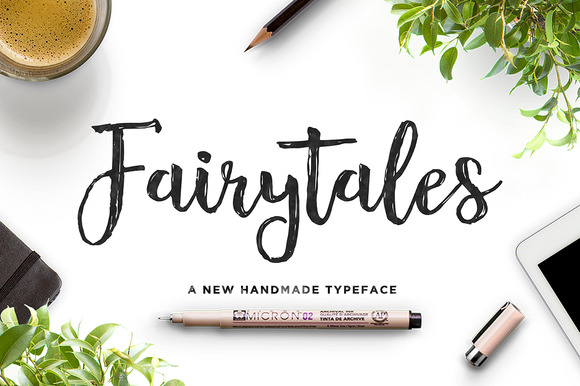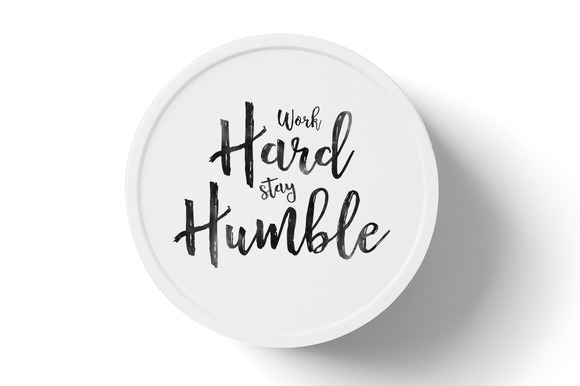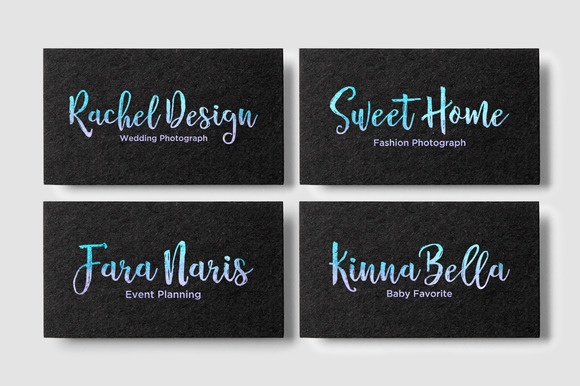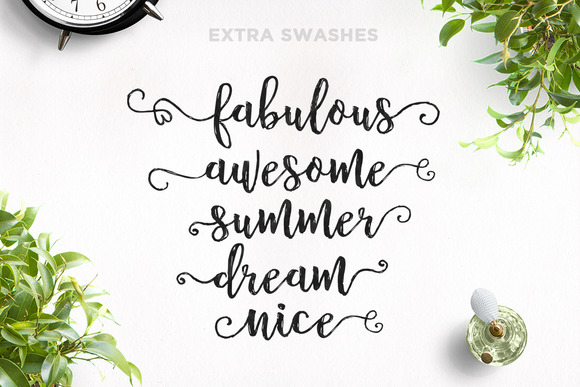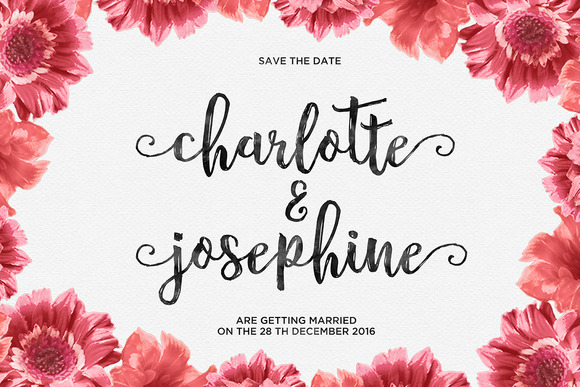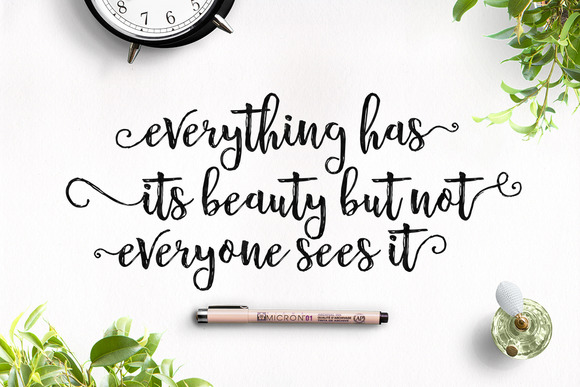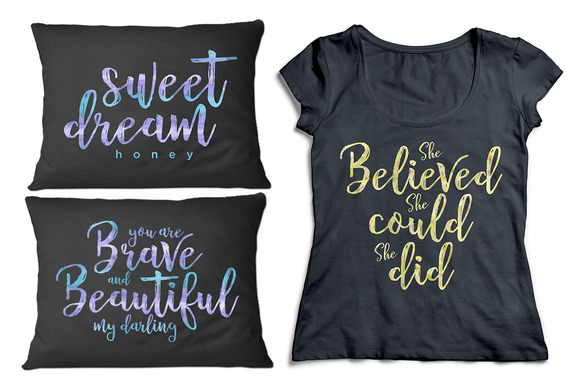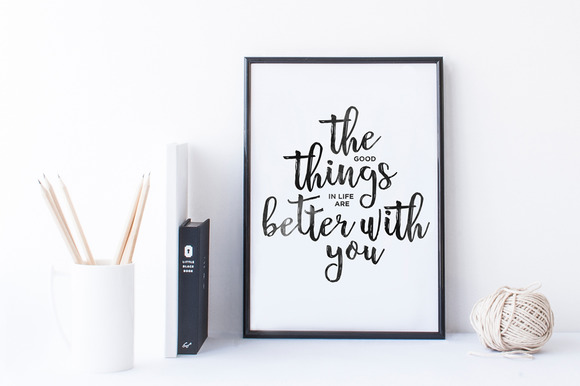
Fairytales Script Font
About Fairytales Script Font
Fairytales is a new handmade typeface with an elegant and fun touch. It has dancing baselines and can be used for various purposes such as headings, logos, invitations, t-shirt designs, greeting cards, posters, labels, book covers, brochures and much more!